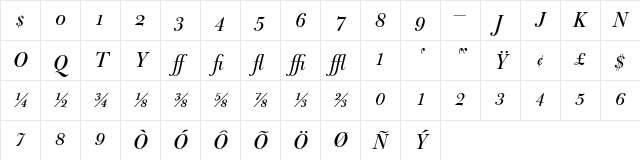
Complete BulmerMTDisplayAlt RomanItalic glyph index. Displaying only characters natively supported by BulmerMTDisplayAlt RomanItalic font.
BulmerMTDisplayAlt is built around its visual character rather than neutral utility - its distinctive forms are designed to make an impression at display sizes. The slanted form adds forward momentum and visual energy.
Font Pairing: Pair with a clean neutral sans-serif for body copy to let BulmerMTDisplayAlt's character lead without overwhelming the composition.
Pro Tip: Use BulmerMTDisplayAlt exclusively at display sizes - it was designed to be seen, not read at length. Let a neutral companion handle body copy.